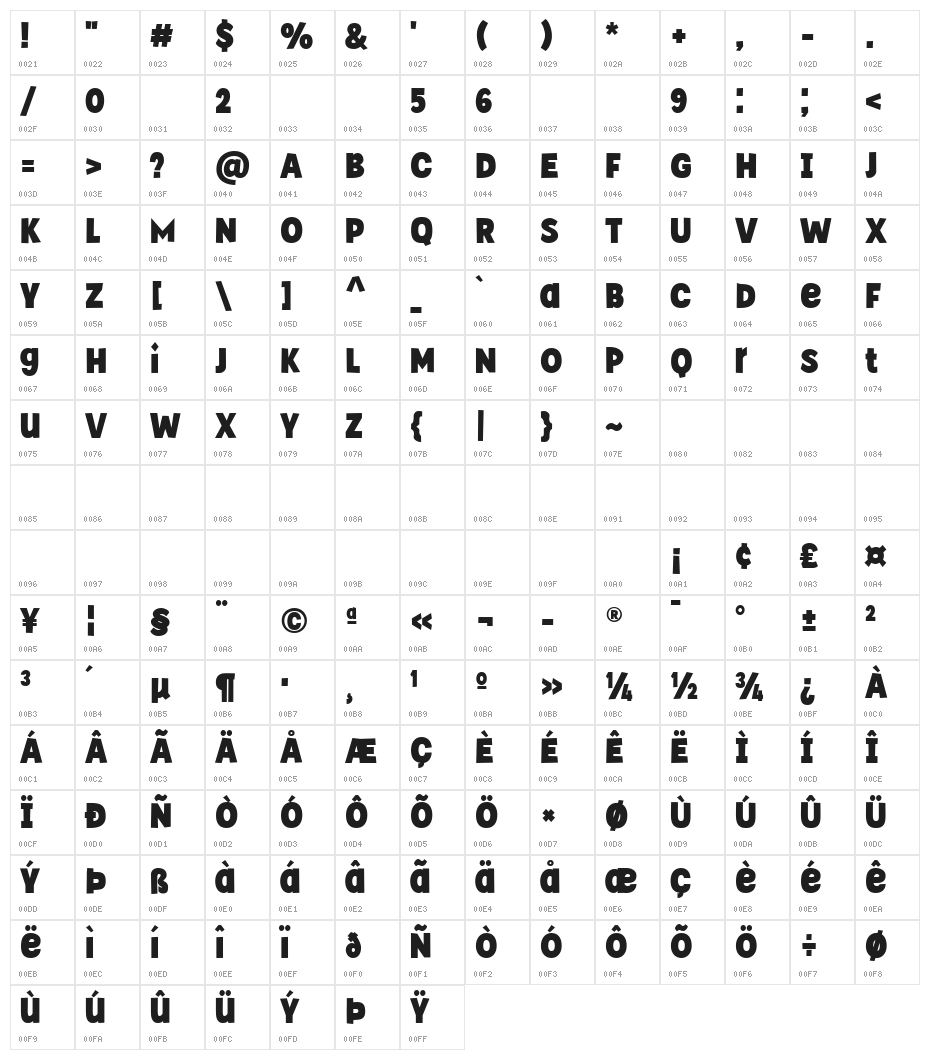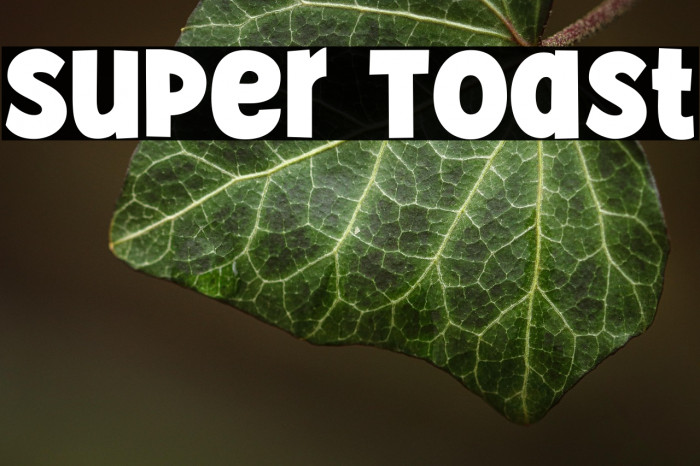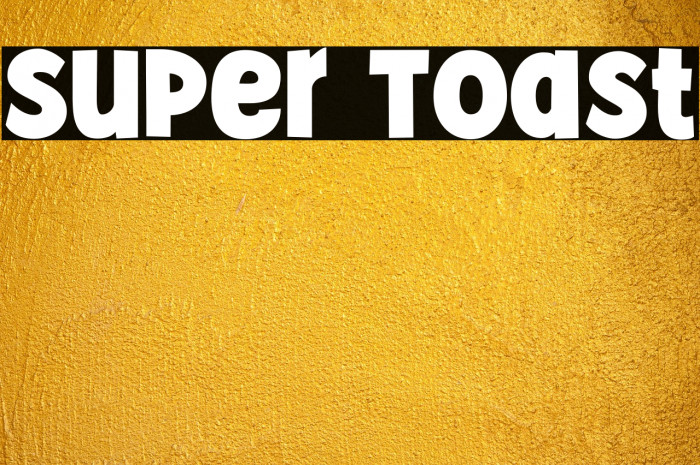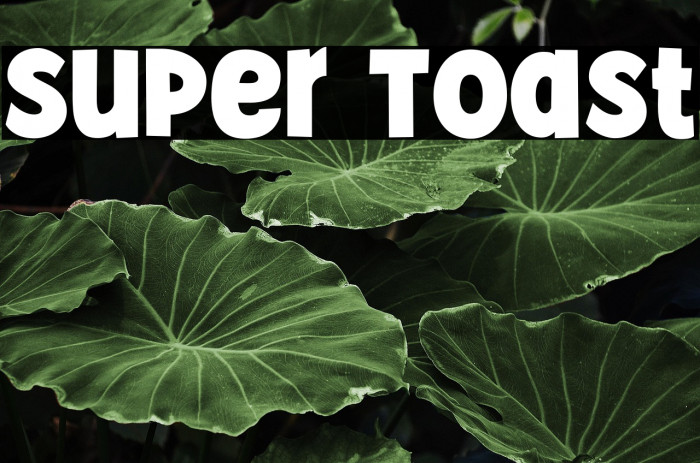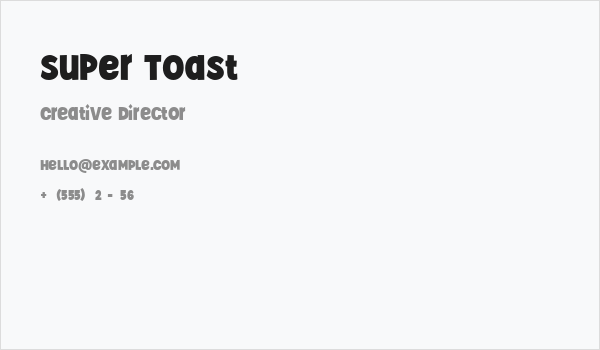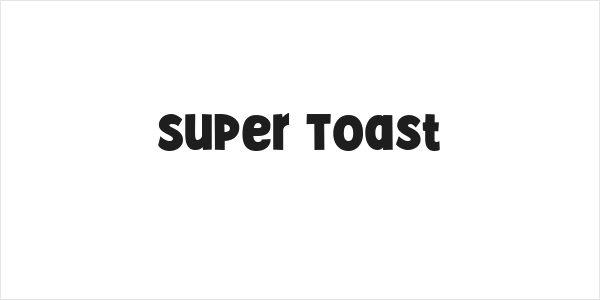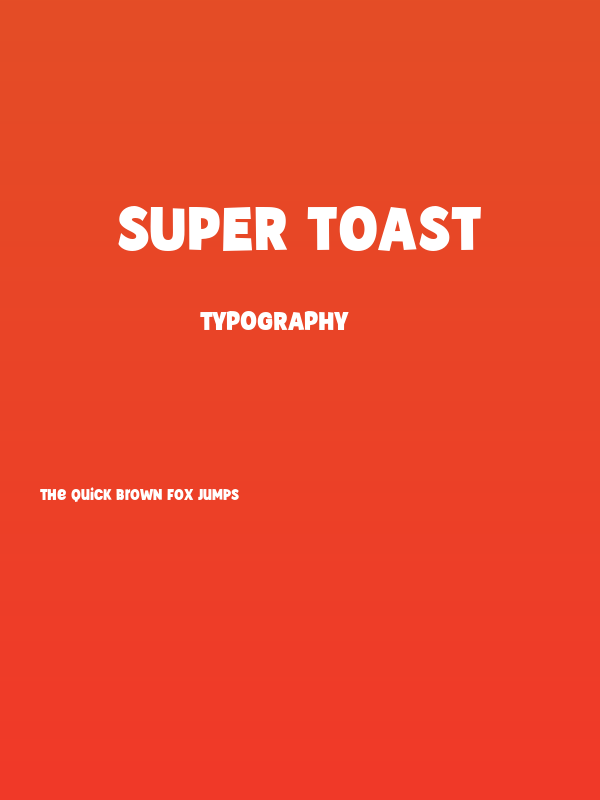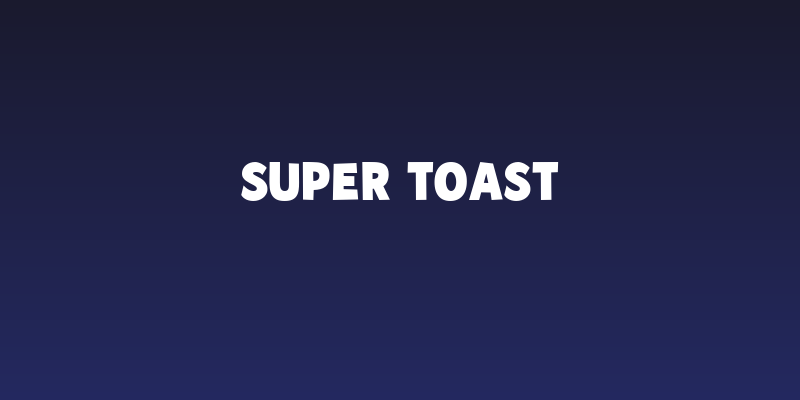
Super Toast Font
Super Toast Description
This font features bold, playful characters with a strong presence. The uppercase letters are robust and slightly condensed, giving a sense of strength and stability. The lowercase letters maintain the same boldness, with unique curves and angles that add a whimsical touch. Numbers are equally bold, ensuring visibility and emphasis. The special characters are designed to match the overall bold aesthetic, making them stand out effectively. This font's style is both modern and fun, suitable for projects that require a strong visual impact.
| Overall Style | Modern, Playful |
| Proposed Projects | Ideal for children's books, playful branding, eye-catching posters, and creative packaging designs. |